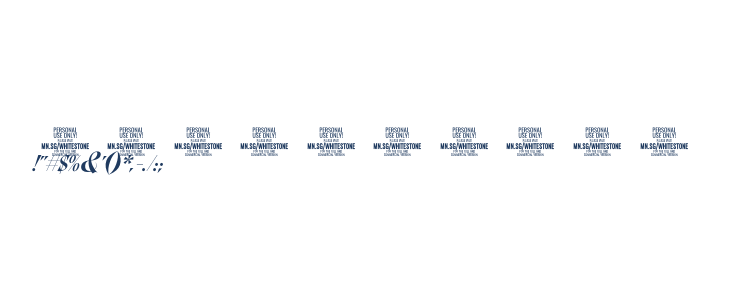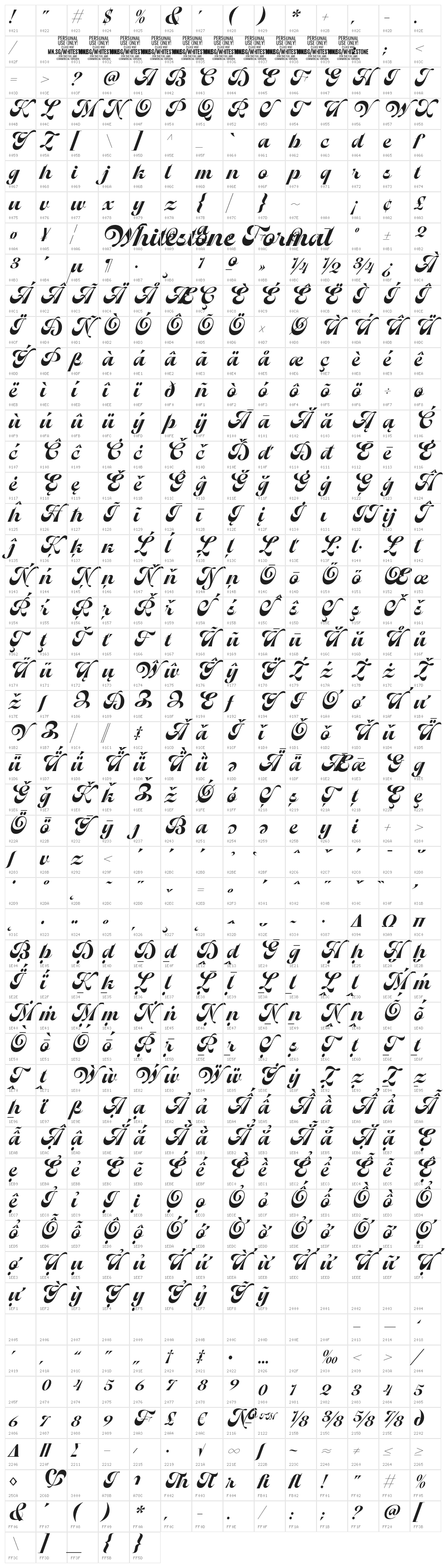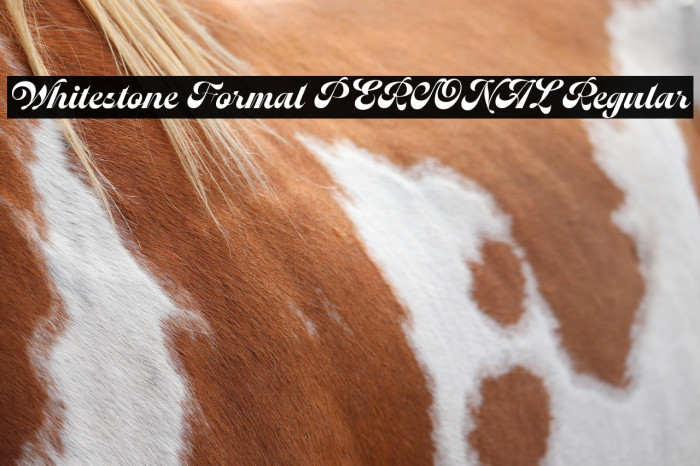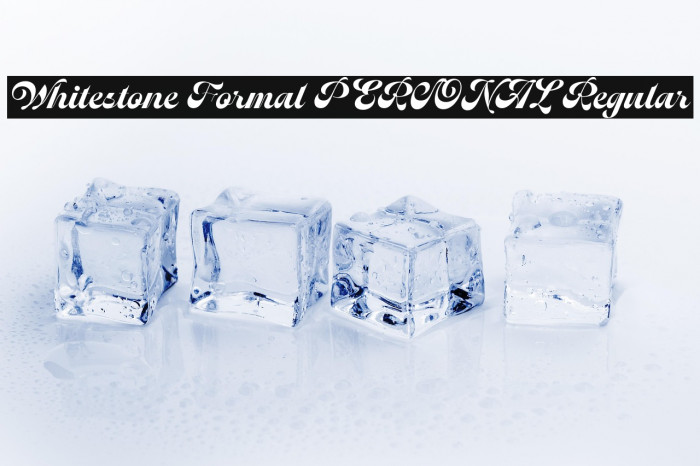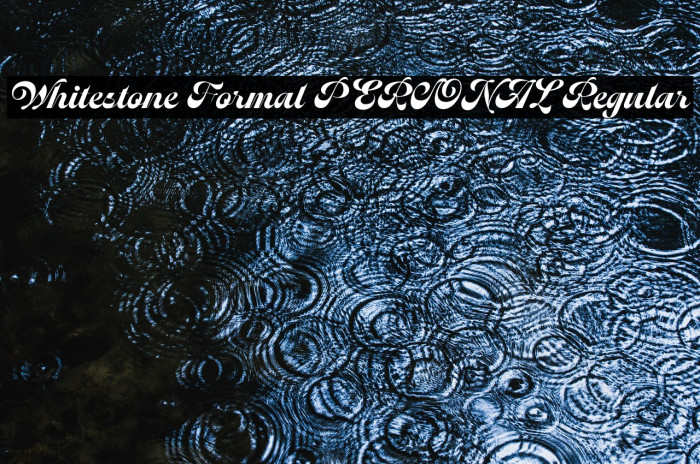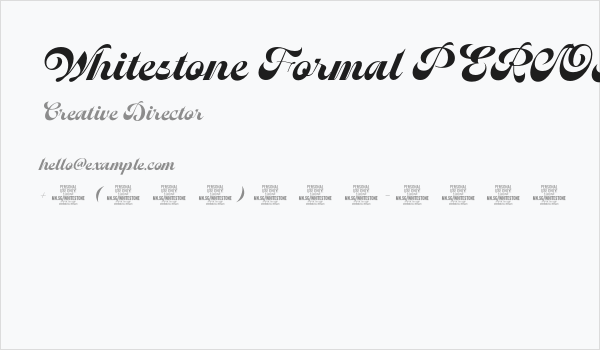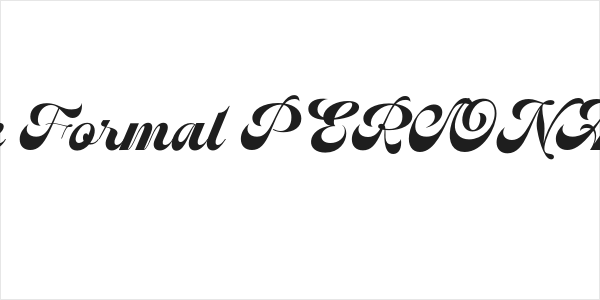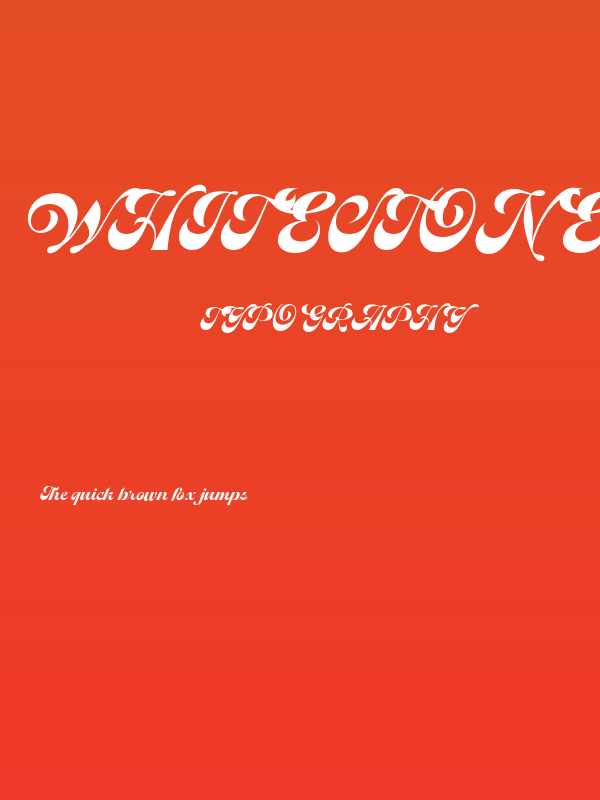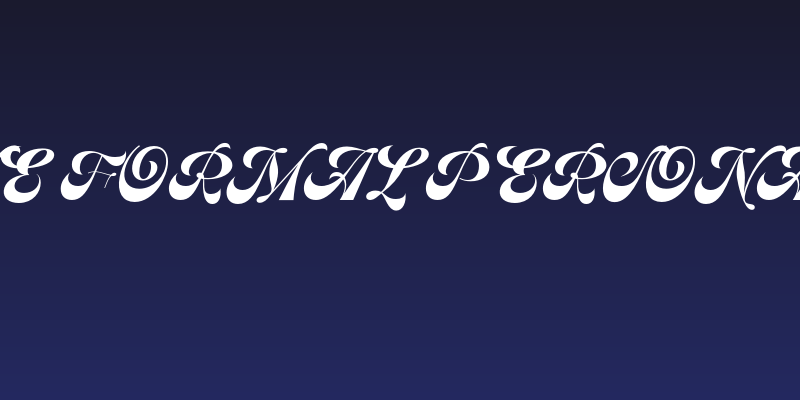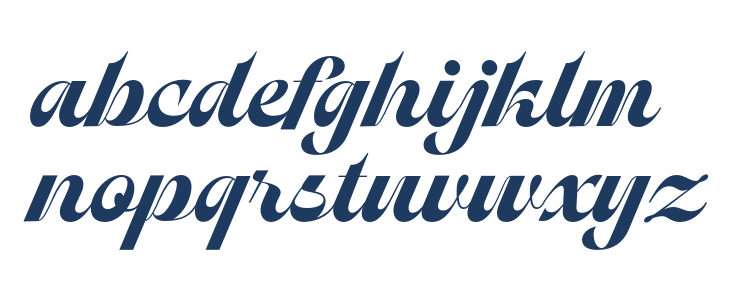
Whitestone Formal PERSONAL Regular Font
Whitestone Formal PERSONAL Regular Description
This elegant script font features a sophisticated and flowing design, characterized by its smooth, cursive strokes and high contrast between thick and thin lines. The uppercase letters exhibit a graceful, sweeping style, while the lowercase letters maintain a consistent fluidity, adding a touch of formality and refinement. The numerals and special characters are designed with the same attention to detail, ensuring a cohesive appearance throughout. This font exudes a sense of luxury and elegance, making it ideal for projects that require a touch of class and sophistication.
| Overall Style | Elegant, Formal |
| Proposed Projects | Ideal for wedding invitations, luxury branding, elegant stationery, and formal event programs. |